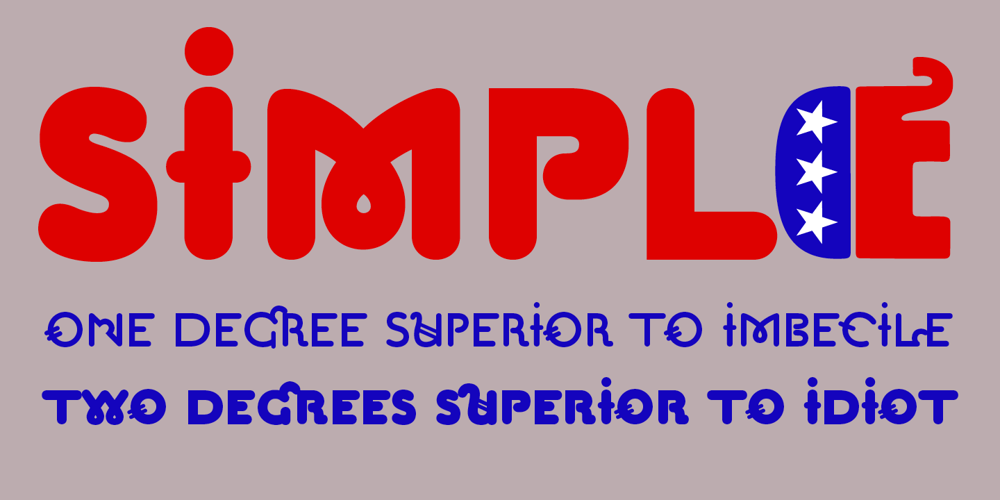
Moron
Moron font
Moron Font Family was designed by Jonathan Barnbrook and published by Barnbrook Fonts. Moron contains 2 styles and family package options. Moron is a distinctive and idiosyncratic display typeface: a winsome-but-nasty, old-and-yet-new drawing of Victorian sans-serif letterforms (with some 1970s sausage fonts thrown in). Moron started life as a sans-serif redrawing of Nylon but developed into a unique typeface with a character all its own. It is based, very loosely, upon Victorian Tuscan and Grotesque type found in the churches and cemeteries of the city of Glasgow. These letterforms originated before the dawn of modernism and at a time when the Arts and Crafts Movement was flourishing. In this age of early mass production and mechanisation, the Victorian ability to balance functionality with ornamentation had fascinating results. The typography of that period displays a unique combination of industrial heft and romantic decoration.